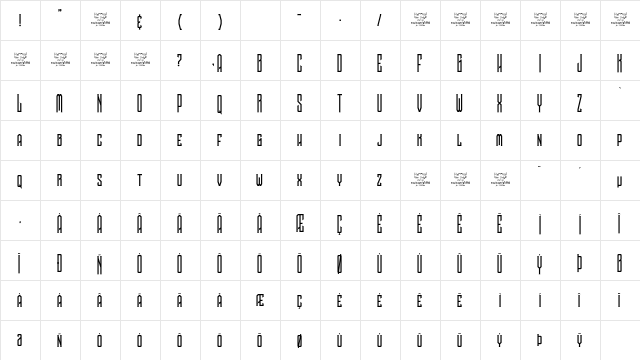
Noggovoso Personal Use Regular
| Foundry | Tama Putra |
| Designer | Tama Putra |
Design Context for Noggovoso Personal Use Typeface
Noggovoso Personal Use offers clean, dependable letterforms without strong stylistic allegiance, making it a practical choice for designers who need flexibility.